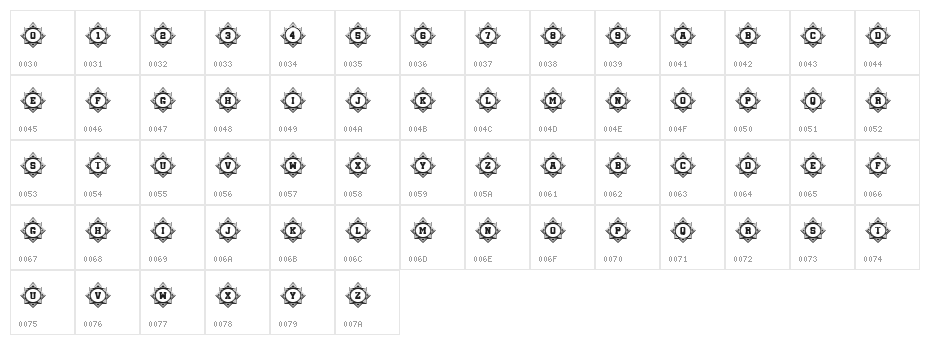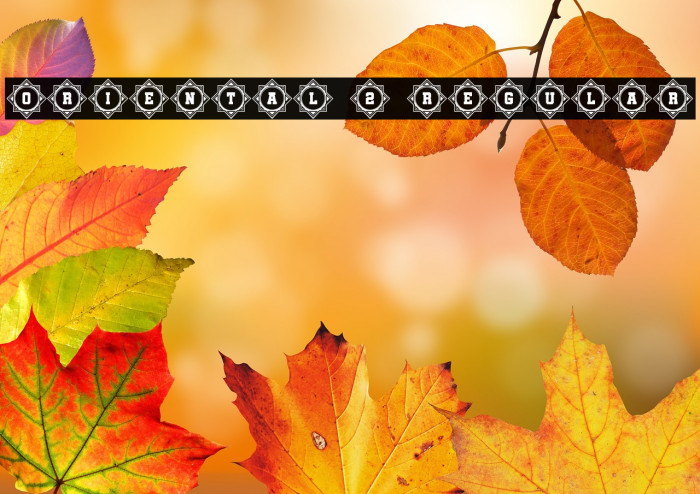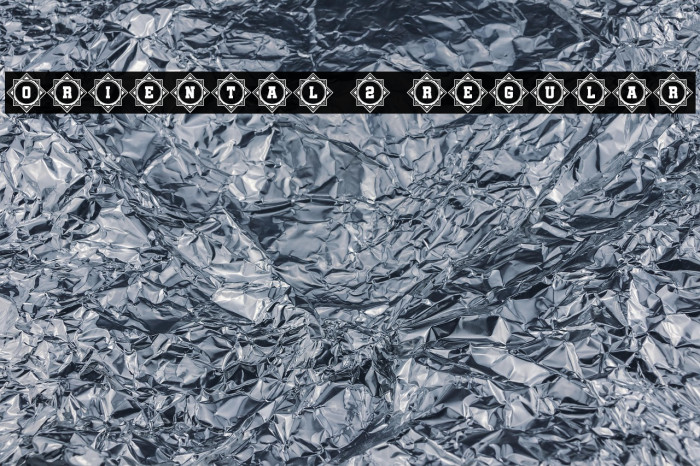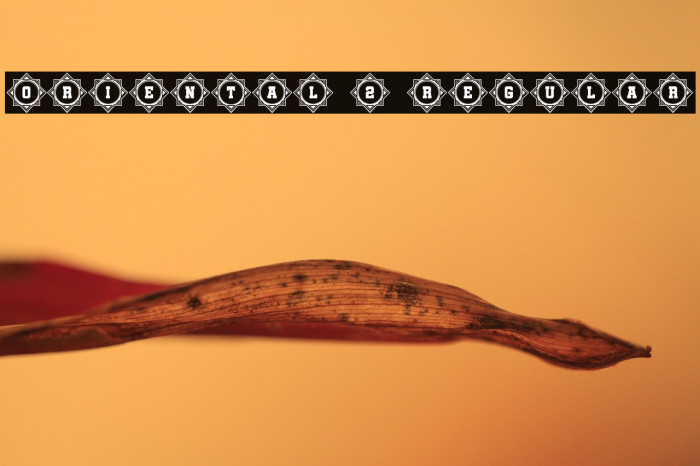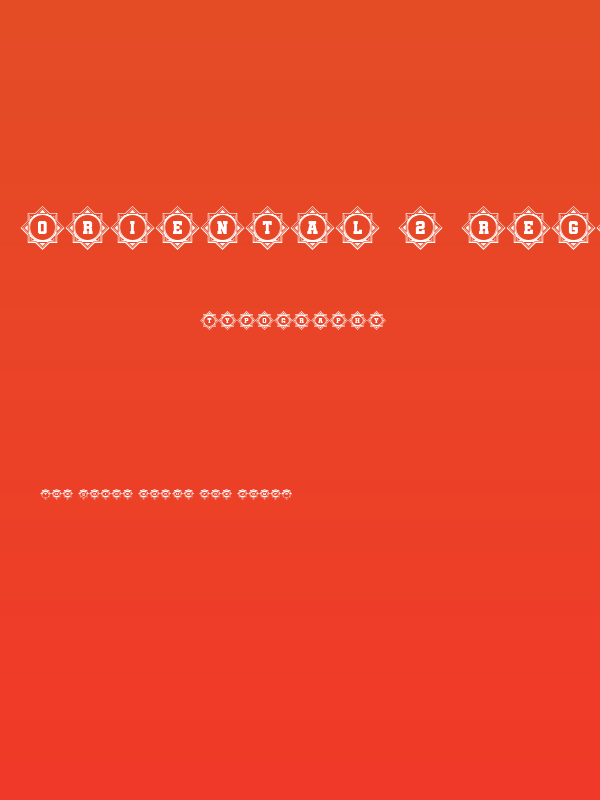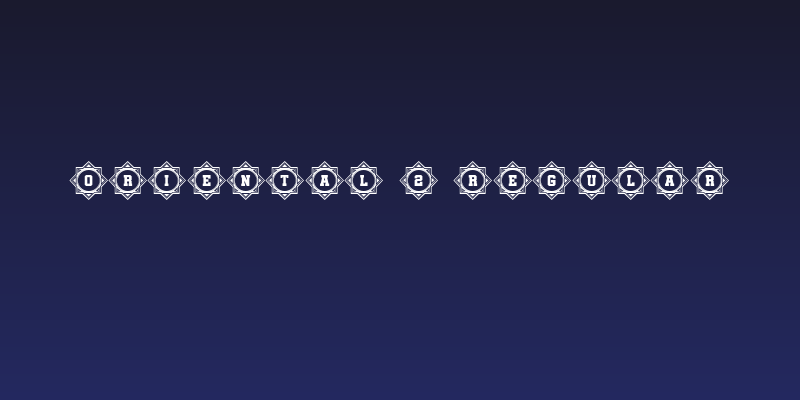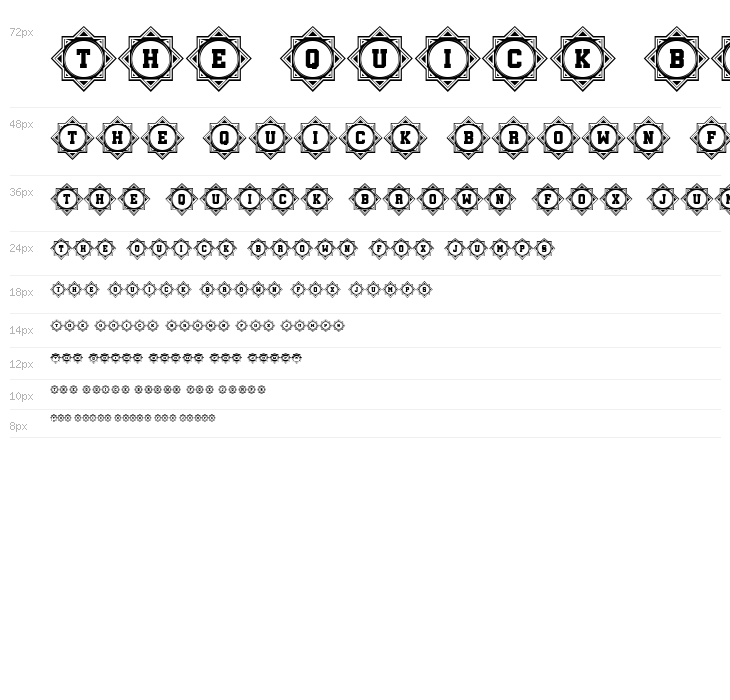
Oriental 2 Regular Font
Oriental 2 Regular Description
This font features a unique decorative style with each character enclosed within an ornate, star-like border. The letters and numbers are bold and geometric, providing a strong visual impact. The design is symmetrical and consistent across all characters, creating a cohesive look. The intricate border adds an exotic and ornamental touch, making it stand out for special occasions or themed projects. The characters are evenly spaced, ensuring readability despite the elaborate design.
| Proposed Projects | Ideal for themed invitations, event posters, or branding that requires a touch of exotic elegance. |